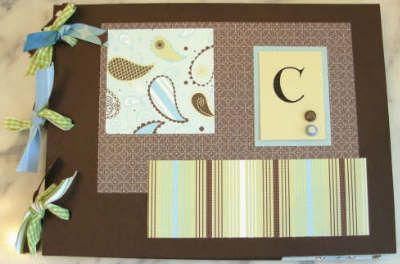
With all this focus on the activities for children, I
love that we're introducing the new Kid
Art Party Bundle.
All the elements of this bundle take me right into their
world of carefree color and fun. Oh what a ball they'll
have!
As I've said before, fonts are
my weakness and the new Once Upon
a Font Bundle feeds my
need perfectly. Great for titles or journaling, monogram
styles or captions, it's a perfect assortment I'm looking
forward to using over and over!
| After
taking four teenage girls into the city or some fun and
adventure, I had lots of photos and picked out the best
to put in a mini book for each of them. I needed a way
to put four books together in minimal time and with minimal
cost. With some help for Lettering Delights it was easy!
I used a basic color scheme, with just three cardstock
colors and three matching patterned papers. The cover features
their first initial in LD
Finesse.
| One page of journaling recaps the day and reminds
them of the unique experiences we had, in LDJ
Forever Friends. |
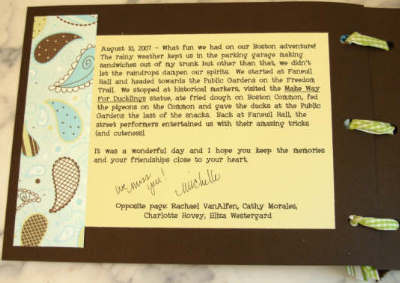 |
| Each page contains just one or maybe two photos
and by using Lettering Delights fonts and DoodleBats I was
able to create simple, complimentary embellishments like
these:
Laugh tab (LD
Farfetched)
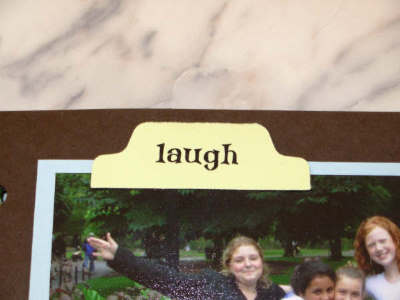 |
| Quote (DB
Roman Philosophy) |
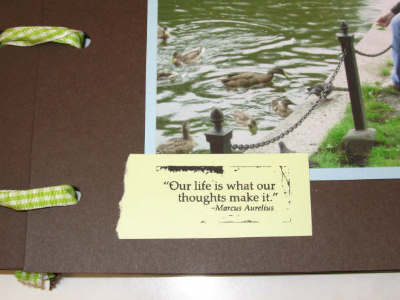 |
| Decorative Corner (DB
Flornaments) |
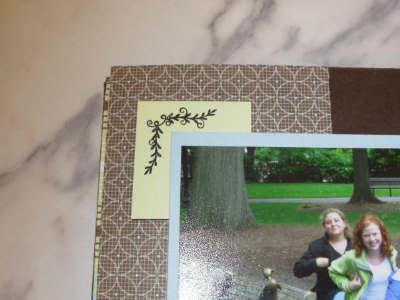
Rani's Lucky You Set |
There's more than just
a pot of gold at the end of the rainbow in Rani's new Lucky
You alphabet and Journaling
Delight clip art set! Green
and grand, the Lucky
You alphabet includes simply styled
and elegantly embellished block letters, perfect for any
occasion – not just the lucky ones. Fifteen images
in the Lucky
You Journaling Delight clip art set include
borders, words/phrases and clip art images, all of which
are sure to bring you all the luck you'll need.
Let 'em loose with the
paints, pens and markers and they'll doodle, draw,
sketch and color a Kid
Art Party Bundle. This pair
of |
alphabets
and matching Journaling Delight clipart sets - including
borders, words and clipart images - are an all occasion
bundle of fun! Celebrate a birthday, create an art project,
host a tea party or become a princess with the Kid
Art Party Bundle.
Once Upon A Font Bundle |
All your stories will be
off to a perfect start with the creative new designs in
the Once
Upon Font Bundle. Each elegant font is perfect
for journaling, titles, invitations, announcements, cards
and more. Enhance your creations with the DoodleBat
Decorum,
full of elegant embellishments for that perfect touch of
something special.
DoodleBat Fairytale Bundle |
Wish upon a star and make
your dreams come true with the five new designs in the
DoodleBat
Fairytale Bundle. DoodleBat words, symbols and
theme designs work just like a font, and are the perfect
way to create simple embellishments and elegant enhancements
for cards, invitations, scrapbook layouts and more.